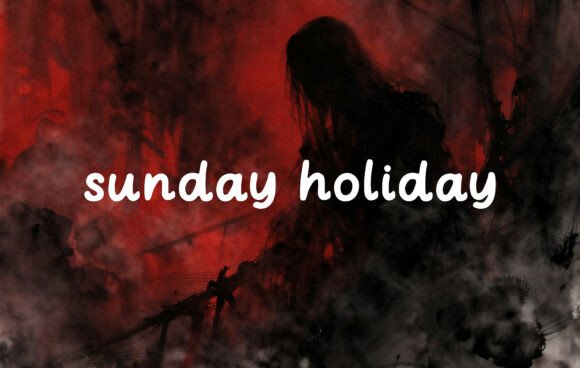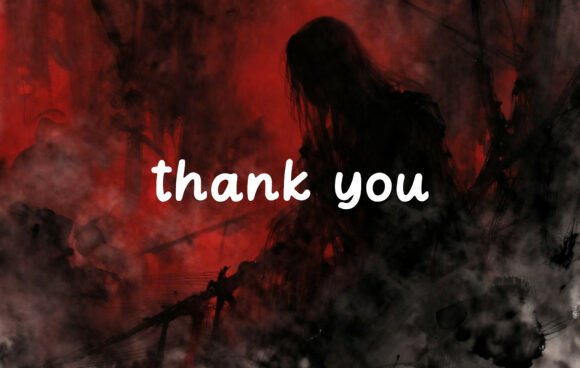
Unleash the Power of Devotion Font: A Visually Striking Typeface for High-Impact Designs
In the world of typography, fonts play a crucial role in conveying emotions and setting the tone for a design. For designers and crafters seeking to create a lasting impression, the Devotion font is an exceptional choice. This robust and visually striking typeface boasts bold, smooth curves that instantly evoke a sense of power, drama, and intense feeling, making it perfect for high-impact visual communication.
The Unique Characteristics of Devotion Font
The Devotion typeface is characterized by its thick, rounded letterforms that bear a resemblance to bubble-style fonts. However, what sets it apart is its inherent gravitational pull, which gives it a heavy, almost somber presence. This contrast to the typical playful use of rounded fonts makes Devotion a compelling and versatile choice for designers. The design is clean yet imposing, ensuring excellent readability in titles and headers, even at larger sizes.
Crafting Emotional Connections with Devotion Font
Emotional connection is key to creating memorable designs, and the Devotion font excels in this regard. Its strong, unwavering presence delivers maximum emotional impact, making it an ideal choice for projects that require a dramatic touch. Whether you’re working on a film poster, album cover, or headline, Devotion helps to evoke a powerful response from your audience.
Applications of Devotion Font
The versatility of the Devotion font makes it suitable for a wide range of applications. Here are a few ideas to get you started:
- Film and Theater Posters: Use Devotion to create eye-catching titles that convey the mood and tone of a movie or play.
- Album Covers: Add a touch of drama and intensity to music album covers with Devotion’s bold and smooth curves.
- Headlines and Titles: Make a statement with Devotion’s heavy, imposing presence in headlines and titles for magazines, newspapers, and digital publications.
- Branding and Advertising: Utilize Devotion to create bold, memorable brand identities and advertisements that demand attention.
Why Choose Devotion Font?
With so many fonts available, why choose Devotion for your design projects? Here are a few compelling reasons:
- Unique Aesthetic: Devotion’s distinctive blend of rounded letterforms and heavy presence sets it apart from other fonts.
- High Readability: The clean design and smooth curves of Devotion ensure excellent readability, even in larger sizes.
- Emotional Impact: Devotion’s powerful presence delivers maximum emotional impact, making it perfect for designs that require a strong response.
- Versatility: Suitable for a wide range of applications, from film posters to branding and advertising.
In conclusion, the Devotion font is a highly effective and evocative display typeface that delivers maximum emotional impact with its strong, unwavering presence. Its unique blend of bold, smooth curves and heavy presence makes it perfect for high-impact visual communication. Whether you’re a designer or crafter, Devotion is an excellent choice for projects that require a touch of drama and intensity. With its versatility, readability, and emotional impact, Devotion is sure to become a go-to font in your design arsenal.
So, unleash the power of Devotion font in your next design project and experience the impact for yourself.